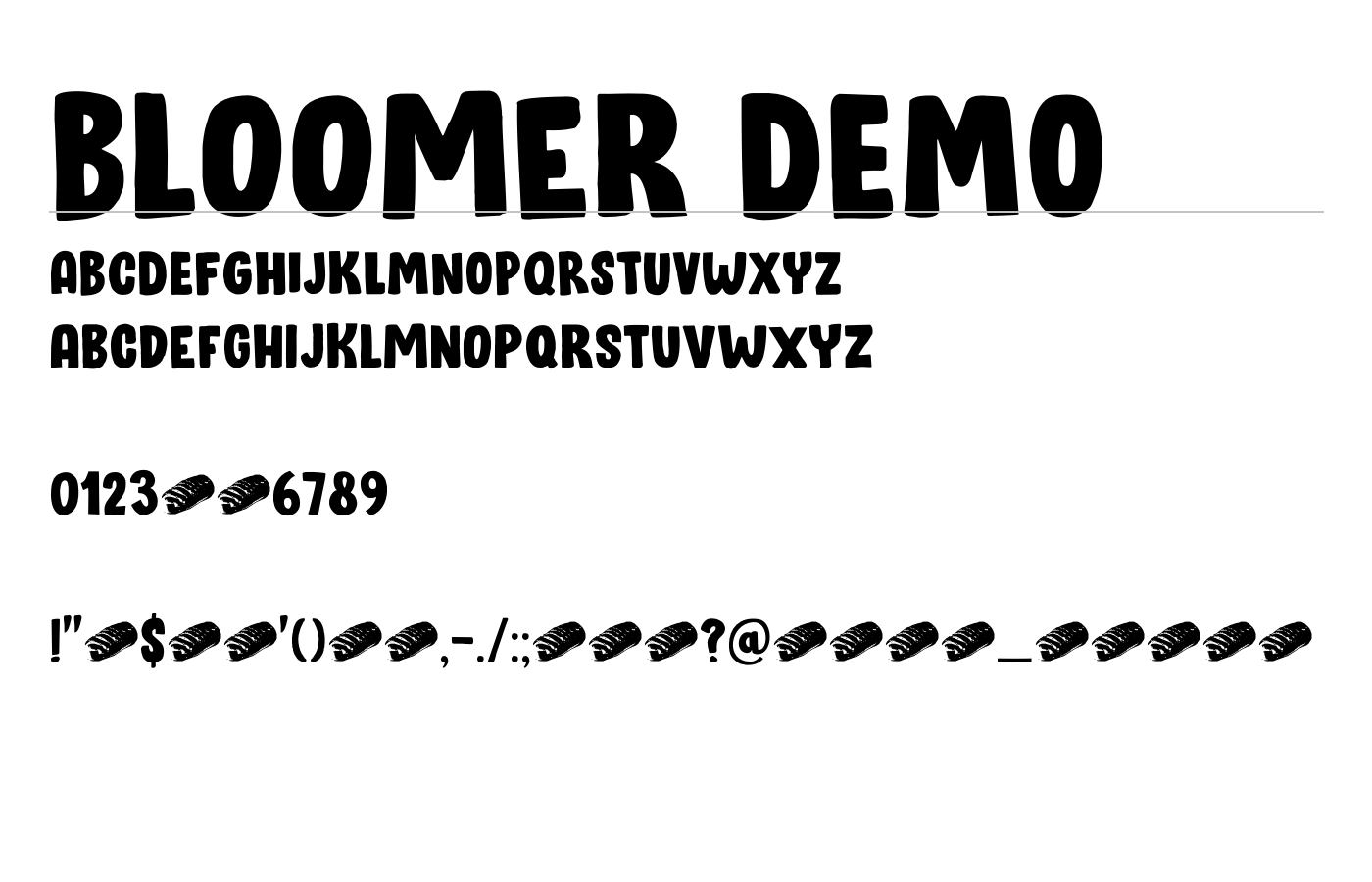
Bloomer DEMO is a bold, playful sans serif font with a chunky, hand-drawn feel that adds a fun and informal touch to any design. Its tall, slightly irregular letterforms and generous spacing make it perfect for eye-catching headlines, logos, or children’s content, conveying a cheerful and approachable personality. This font works best where a lively, casual vibe is desired, such as posters, packaging, or creative branding.
Bloomer DEMO Font
About Bloomer DEMO Font
| Font family | Bloomer DEMO Font |